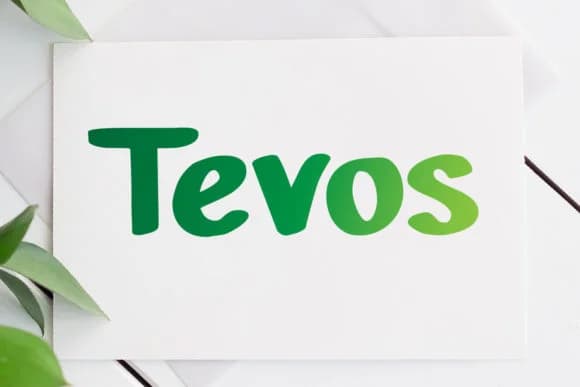
Tevos by da_only_aan is a modern handwritten script that brings understated elegance to any lettering work. The clean letterforms avoid ornate flourishes that tend to date quickly, keeping it relevant across both digital and print applications without the dated feel that plagues many script fonts.
Wedding invitation suites benefit from its readable yet personal feel, striking that balance between polish and warmth that formal stationery demands. Small business branding comes alive with this script, from coffee shop menus and boutique packaging to personalized business cards that genuinely feel made-to-order. Social media graphics and Instagram quote posts gain immediate personality with its contemporary handwritten character, giving your feed a distinctive voice that stops the scroll.
It's the kind of script that feels handcrafted without being messy or illegible, so it works across artisanal product labels, branded gift wrap, event signage, and DIY craft projects where authenticity matters most. Designers often reach for it when they need a typeface that conveys both professionalism and genuine warmth, not one at the expense of the other. That restraint, avoiding both sterility and chaos, makes Tevos a dependable choice whenever you need character in your typography. You'll find it on Creative Fabrica, ready to give your next project that handwritten personality.
Tevos Font is a script font that shines as a display or heading face. Pair it with a clean sans-serif or serif font for body text β the contrast creates a clear hierarchy while the two styles stay balanced and easy to read.
Tevos Font
by da_only_aan